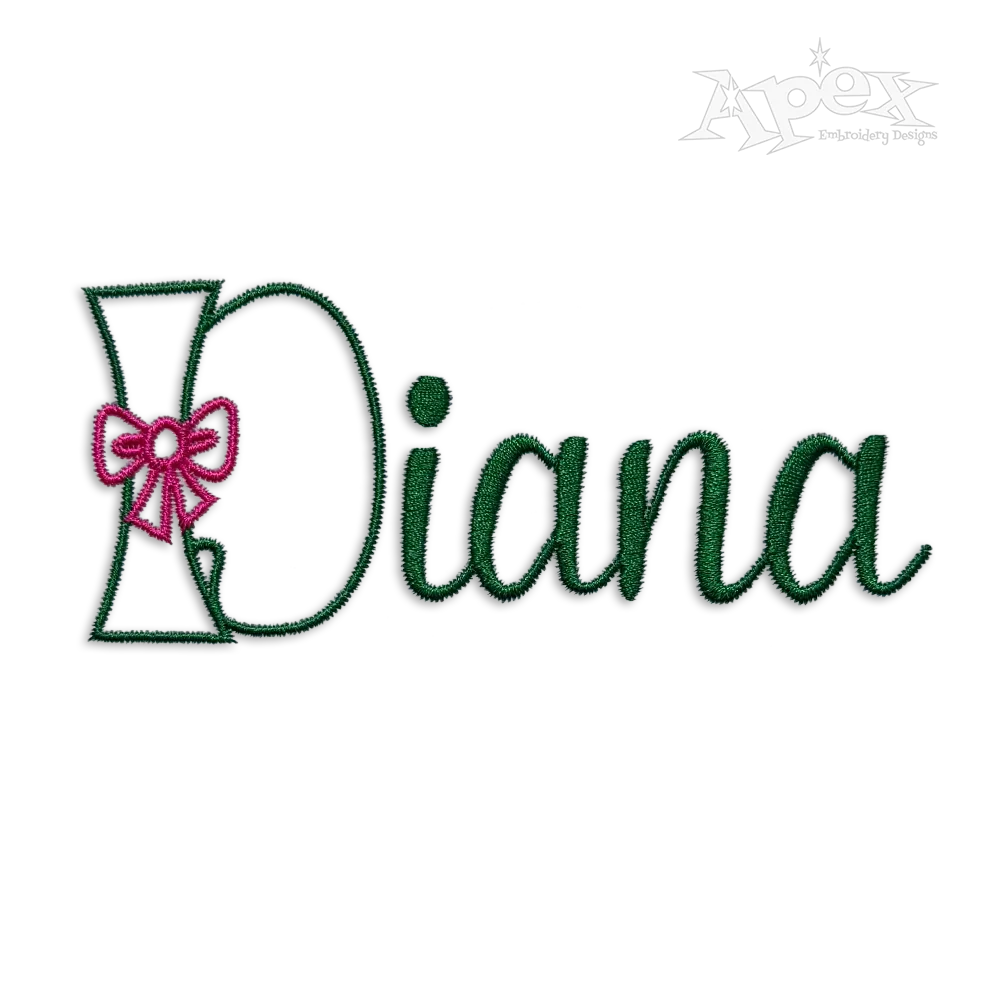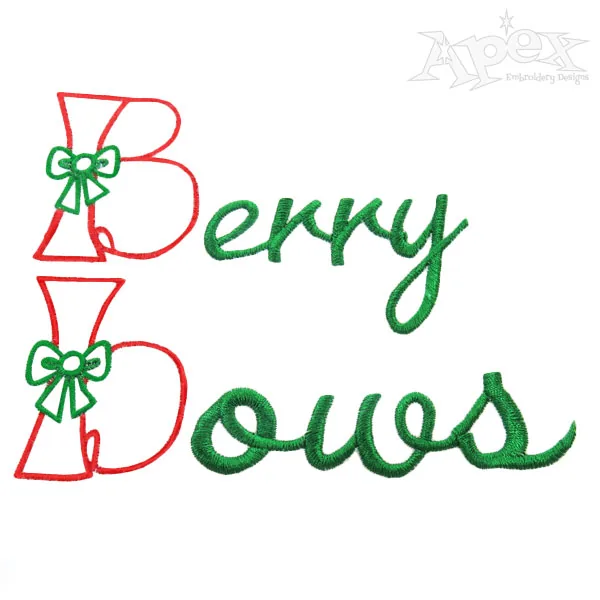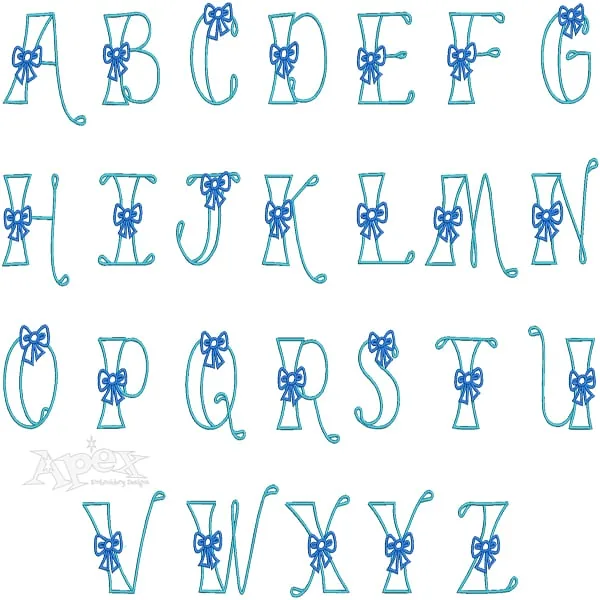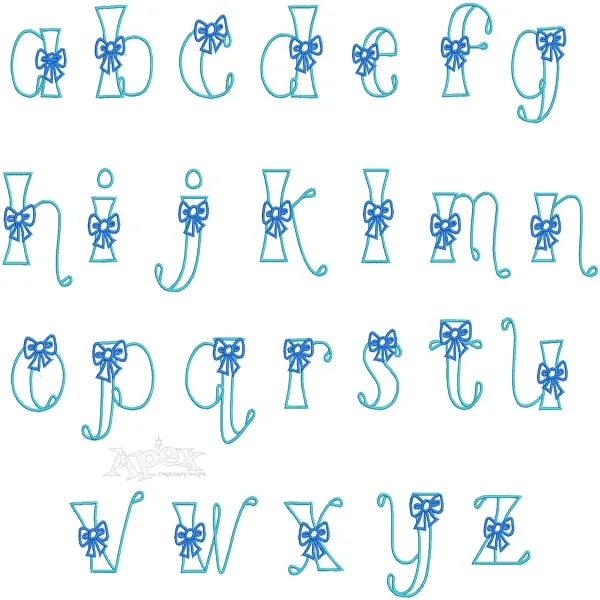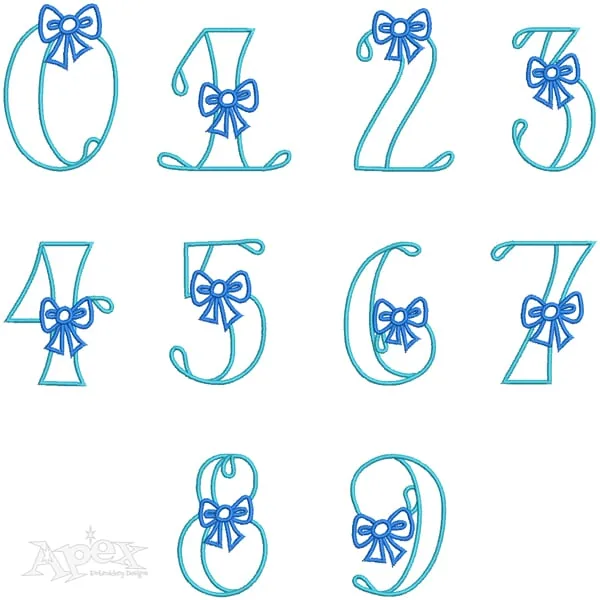
Christmas Bow Embroidery Fonts
There is an undeniable nostalgia in the art of the holiday ribbon—the crisp whisper of taffeta pulled into a jaunty bow, heralding joyful anticipation and thoughtful gifting. When sketching the Christmas Bow Embroidery Font, our vision was to translate that effervescent holiday spirit directly into needle and thread. Each letterform is accented with dainty, sculpted ribbon bows that evoke the magic of Christmas morning, heirloom stockings hung by the fire, and celebratory birthdays. Whether stitched in classic crimson and evergreen or softened with pastel silks, this alphabet brings a whimsical, festive flourish to personalized keepsakes.
Project Ideas for Christmas Bow Embroidery Fonts
The cheerful silhouette of this alphabet makes it a delightful choice for bespoke seasonal gifts and celebratory home decor:
- Heirloom Velvet & Linen Stockings: Personalize family stockings along the cuffs for a warm, timeless holiday mantle arrangement.
- Festive Cocktail & Dinner Napkins: Stitch single-letter monograms in the corners of hemstitched linen napkins to welcome dinner guests with handcrafted hospitality.
- Holiday Loungewear & Children's Pyjamas: Add cheerful initials or full names to matching Christmas Eve pajamas, flannel loungewear, and cozy winter knits.
- Personalized Gift Sacks & Santa Bags: Turn reusable canvas gift totes and cotton drawstring bags into cherished family traditions with permanently embroidered names.
- Holiday Tree Skirts & Accent Pillows: Frame a velvet tree skirt or seasonal throw pillow with monogrammed family initials for an elevated festive living room accent.
To let the charming bow flourishes take center stage, consider these time-tested placement ideas:
- Napkin Corner (45-Degree Diagonal): Position the monogram 1.5 to 2 inches inward from the lower corner point for a graceful, tailored look when folded.
- Chest Center: On baby rompers, holiday dresses, or sweatshirts, center single initials or short names 2 to 3 inches below the collar seam.
- Stocking Cuffs: Center the lettering both horizontally and vertically across the turned cuff, leaving generous margins on all sides so the loops of the bow remain crisp and unobstructed.
- Tote & Sack Fronts: Center monograms on the upper third of gift bags and totes to maintain balanced proportions when filled and tied.
Christmas Bow Embroidery Fonts Craft & Letterform Details
Balancing decorative elements with legible letterforms requires meticulous digitizing. Each letter in this alphabet is built on clean, proportional foundational strokes, ensuring that the characters remain instantly recognizable even from across the room. The playful bows are seamlessly incorporated with custom stitch angles that guide the thread in a continuous, flowing sweep around the knots and curling ribbon tails.
We carefully calibrated underlay support beneath each satin column to prevent fabric bunching and maintain dimensional loft. As your needle glides through the satin paths, the shifting thread angles catch the ambient light, giving the stitched bows the luminous sheen of real festive ribbon without unnecessary stitch buildup.